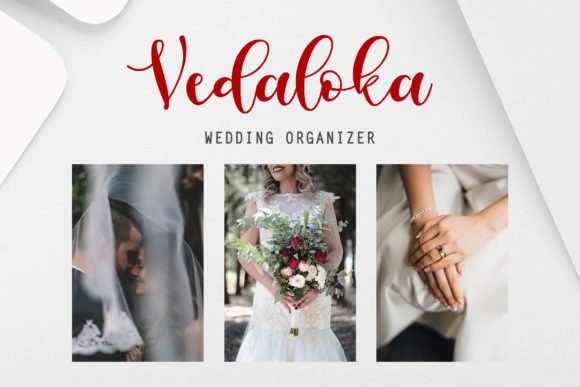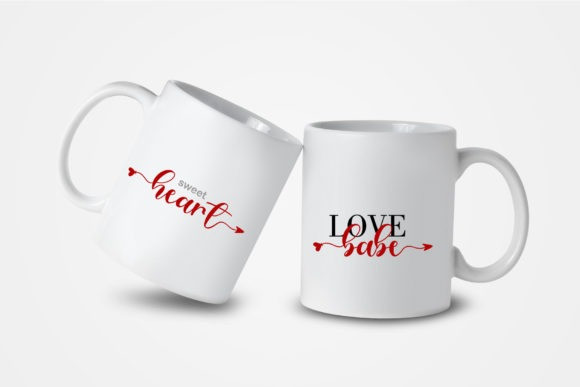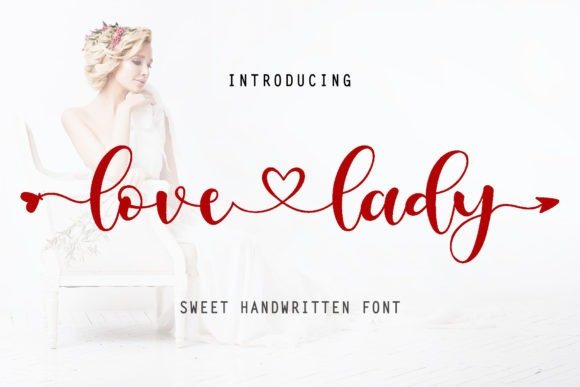
Love Lady Font
Love Lady Calligraphy Font is a sweet and romantic handwritten font. It will add a luxury spark to any design project that you wish to create! This font is PUA encoded which means you can access all of the amazing glyphs and ligatures with ease!